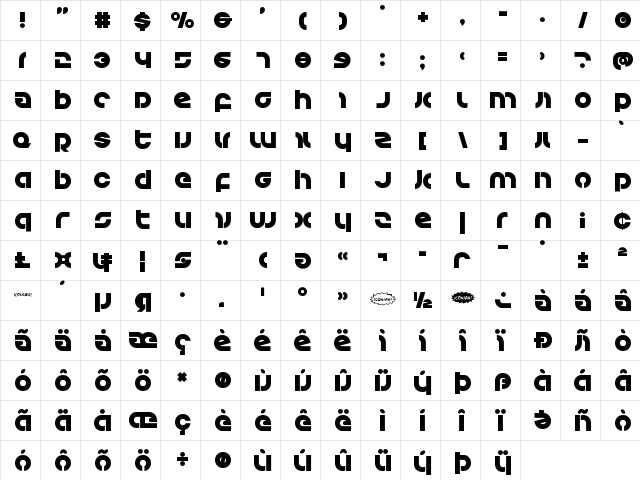
Kovacs Title Regular Font Preview
Kovacs Title Regular
Design Context for Kovacs Title Typeface
Kovacs Title is a composed and adaptable typeface that performs quietly and consistently across a wide range of design contexts.